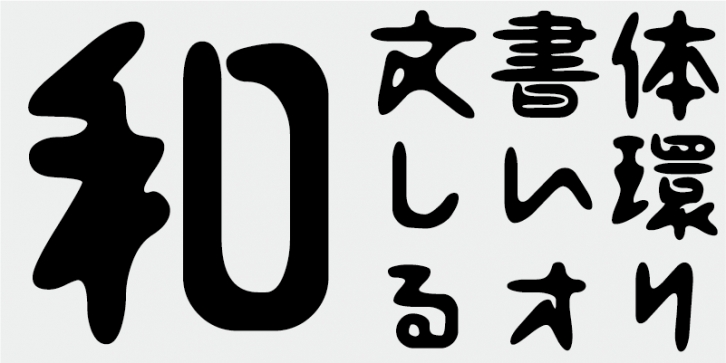
This rounded corner gothic (sans-serif) typeface effectively creates a sense of softness.
This font includes top 1,000 kanji characters chosen from character frequency tables made by newspaper companies, publishing houses and linguistic research institutes, plus 206 kana characters and punctuation marks.
In Japanese font production today, the 7,000 characters in the JIS standard are considered essential. But, do all fonts really need 7,000 characters? In the age of phototypesetting, far fewer characters were needed. FONT1000, a group of independent type designers, started with that simple question. We have selected the minimum 1,000 kanji (ideographic) characters needed for typesetting in Japanese and actively created typefaces and fonts to support it. This 1,000-kanji-character set was selected using character frequency data compiled by newspaper companies, publishing houses and linguistic research organizations, etc., and also includes kana syllabic characters and punctuation marks. FONT1000 was formed in 2001 with 25 designers and 25 typefaces. Today we have 130 typefaces and have grown to include nearly 40 members, making it possible to work on fonts with more characters.